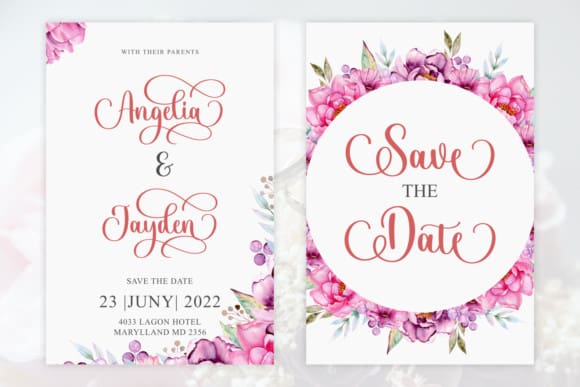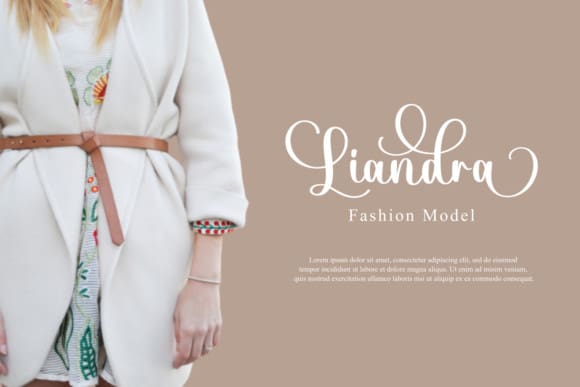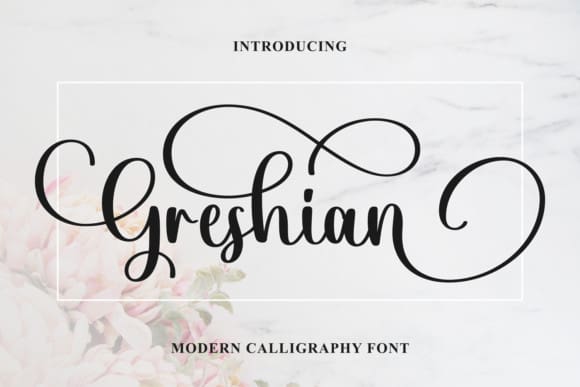
Greshian Font
Greshian Font is a curly and sweet handwritten font. It is suitable for any projects such as: logos, branding projects, label, photography, watermark, special events, and all your other lovely projects that need a beautiful script taste.